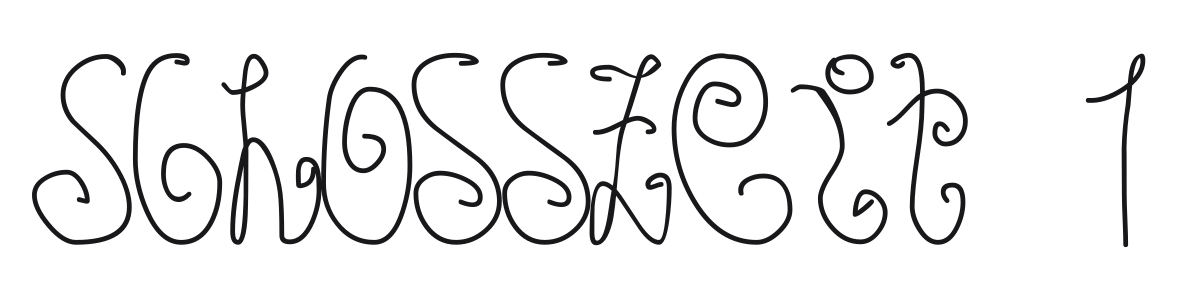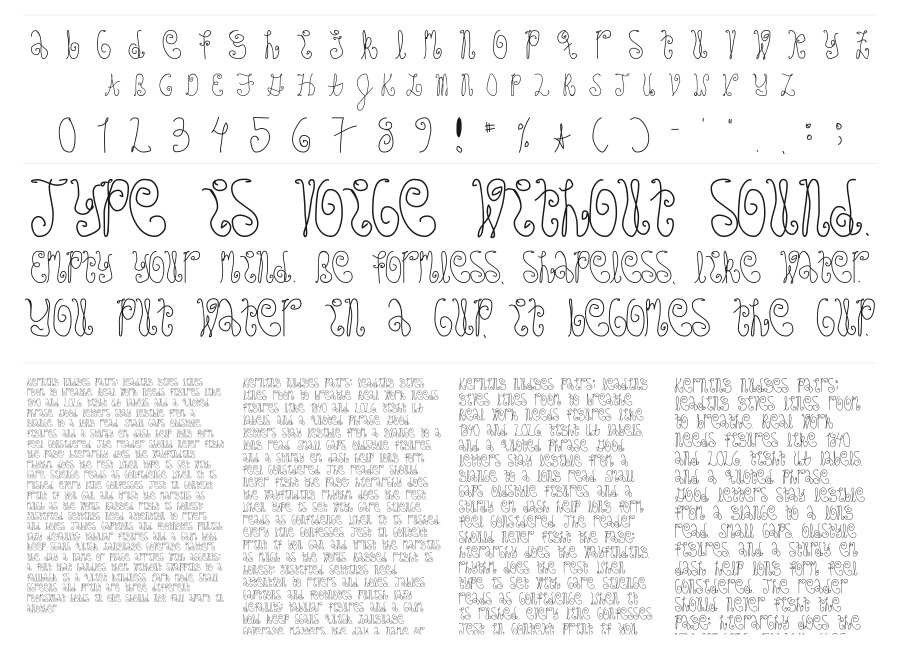
Schosszeit 1
Schosszeit 1 is a thin, curly display font where nearly every stroke ends in a swirling spiral or looping flourish. The letters bounce and twist across the baseline with an unpredictable, storybook energy. It works best large, where those hand-drawn spirals can breathe and do their thing.